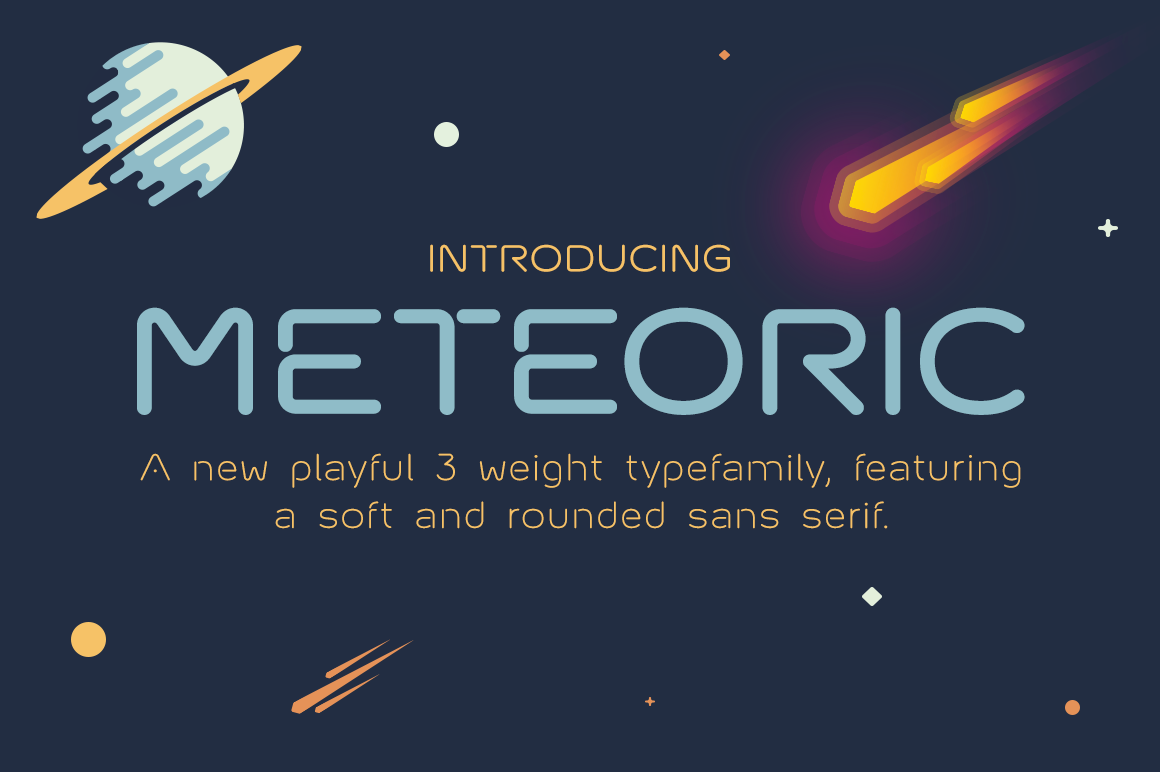
Meteoric Typefamily + Free Bonus
Meteoric is a new playful three-weight typefamily, featuring a soft and rounded sans serif. The semi-stencil style gives it a distinct futuristic look and modern feeling, that is great for logo design, headlines and branding purposes. This monoline typeface, with soft terminals, is a lovely, sweet and perfect typeface for a multitude of typographic applications.